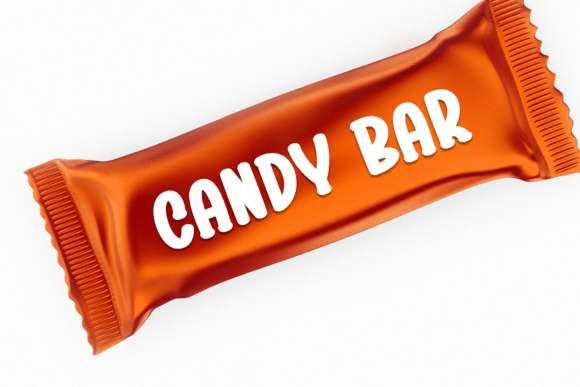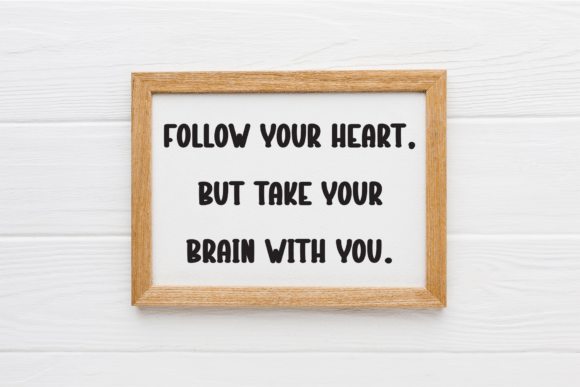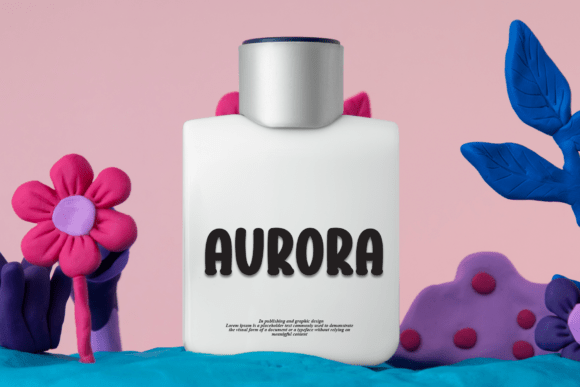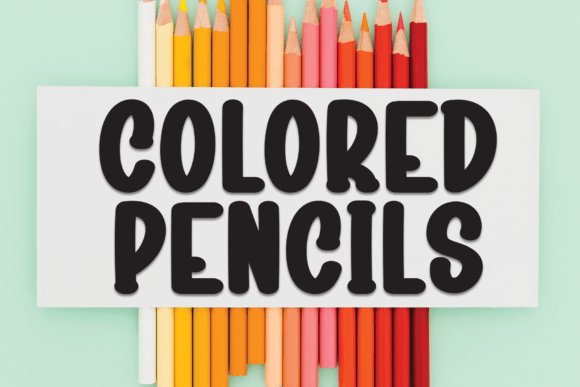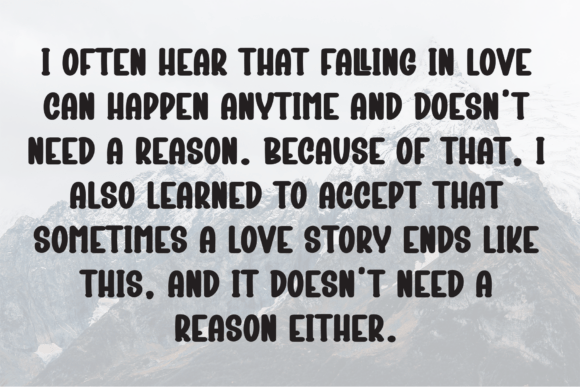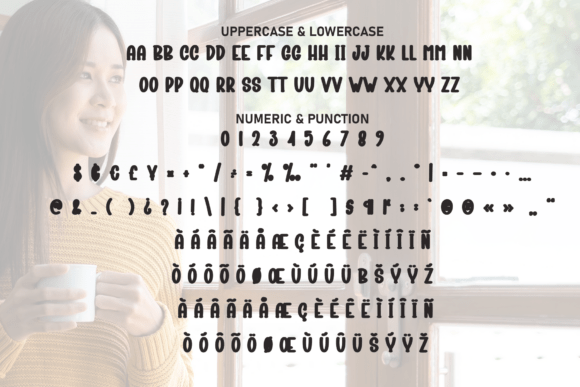
Cozy Up Your Designs with Hello Home Font
As designers, we’ve all had those moments when we’re brainstorming ideas for a project and suddenly, the perfect font pops into our minds. It’s like a warm hug for our creative souls. For me, it was the moment I stumbled upon the Hello Home Font – a typography treasure that radiates coziness and friendliness. Its rounded bold lettering is the epitome of approachability, making it an instant favorite for home decor prints, social media graphics, and lifestyle branding.
With the Hello Home Font, you can bring a comforting vibe to your creative projects, making it a valuable addition to any designer’s toolkit. Its quirky letterforms and inviting style make it perfect for conveying a sense of warmth and welcome. Whether you’re working on a family home decor project or a social media campaign, this font is sure to make your designs feel like a warm hug for your audience.
Hello Home Font Key Features
- Font Family: Hello Home is a sans-serif font family designed for digital use, available in various weights and styles.
- Unique Characteristics: The font features a clean, modern design with subtle rounded edges and a friendly, approachable feel, making it ideal for use in branding, advertising, and editorial design.
Hello Home Font Review
I’ve had the chance to work with the “Hello Home Font” and I’m excited to share my honest thoughts.
- The friendly and approachable feel of the font is perfect for home decor and interior design projects.
- The script and regular font styles work well together to create a balanced and visually appealing combination.
- The font is highly customizable, making it easy to adjust the size, color, and spacing to fit your design needs.
- The font may not be suitable for formal or professional projects, as it has a more casual and playful feel.
- The font library is limited, which may not provide enough options for complex designs or projects with multiple font styles.
- The font may not be as readable at very small sizes, which could be a concern for projects with tight space constraints.
Overall, I think “Hello Home Font” is a great option for designers working on home decor and interior design projects. While it may have some limitations, the font’s friendly feel and high customizability make it a great choice for creating visually appealing and engaging designs.
Practical Application Guide for “Hello Home Font”
Tips for Getting the Most Out of “Hello Home Font”
Here are some tips to help you get the most out of “Hello Home Font”:
- Use it for headings and titles to add a touch of elegance to your designs.
- Pair it with other fonts to create a unique and eye-catching typography combination.
- Experiment with different font sizes and styles to add depth and interest to your designs.
“Hello Home Font” is perfect for:
- Home decor and interior design projects.
Alternatives to “Hello Home Font” for Designers
Great Vibes Font is a modern and elegant script font that is perfect for creating a friendly and approachable atmosphere. It’s ideal for use in branding, packaging, and advertising materials where a touch of warmth and personality is needed.
Compared to Hello Home Font, Great Vibes Font has a more refined and sophisticated feel, making it suitable for a wider range of design applications.
Alex Brush Font is a beautiful and elegant script font that is reminiscent of handwritten brush strokes. It’s perfect for use in creative and artistic projects, such as book covers, magazines, and websites.